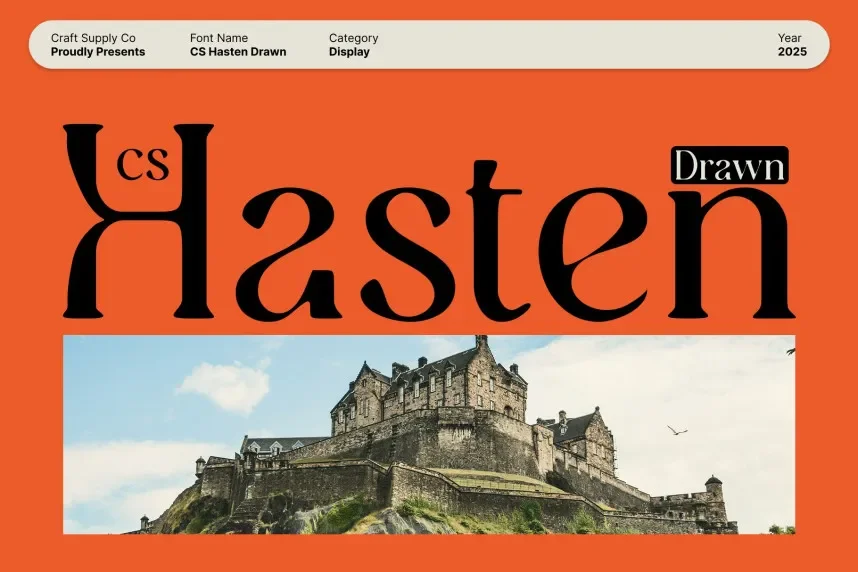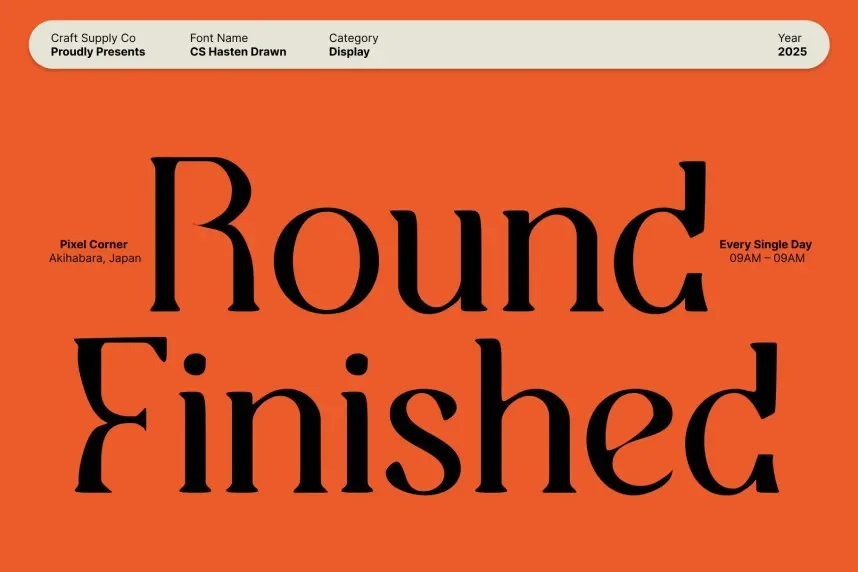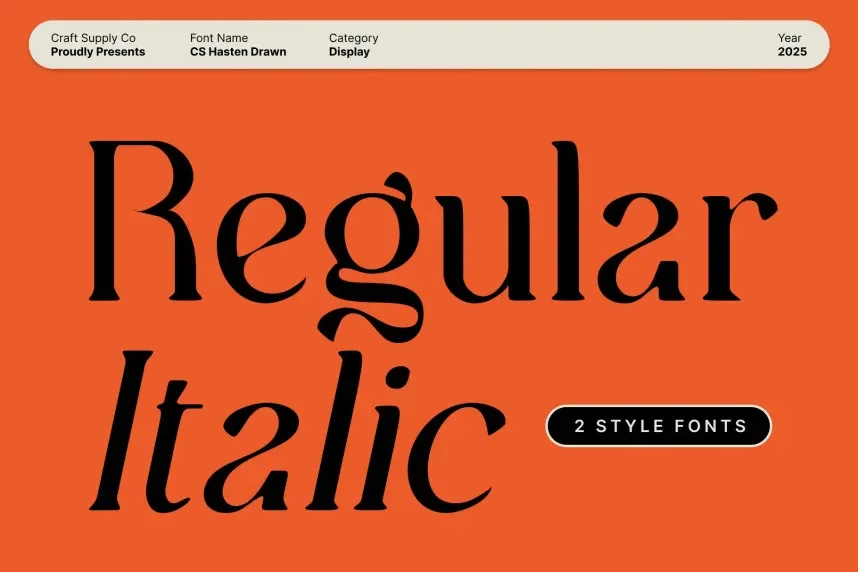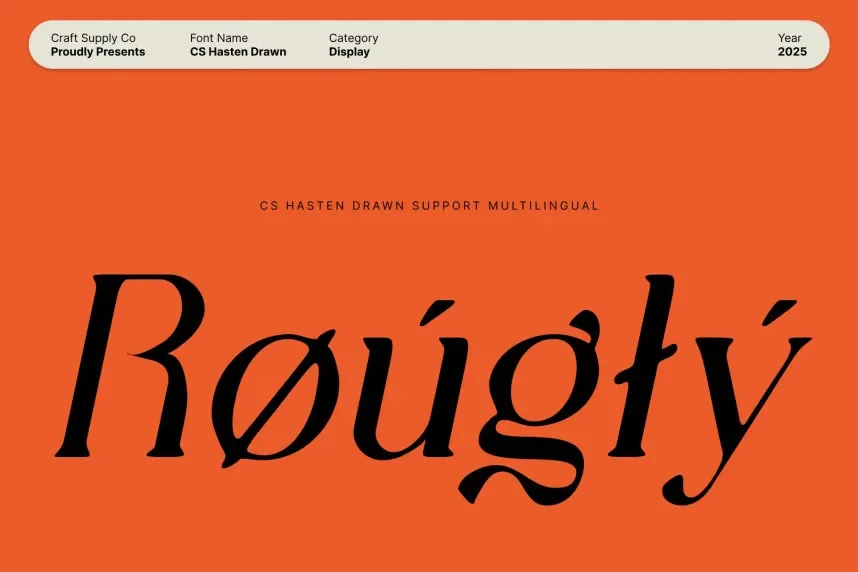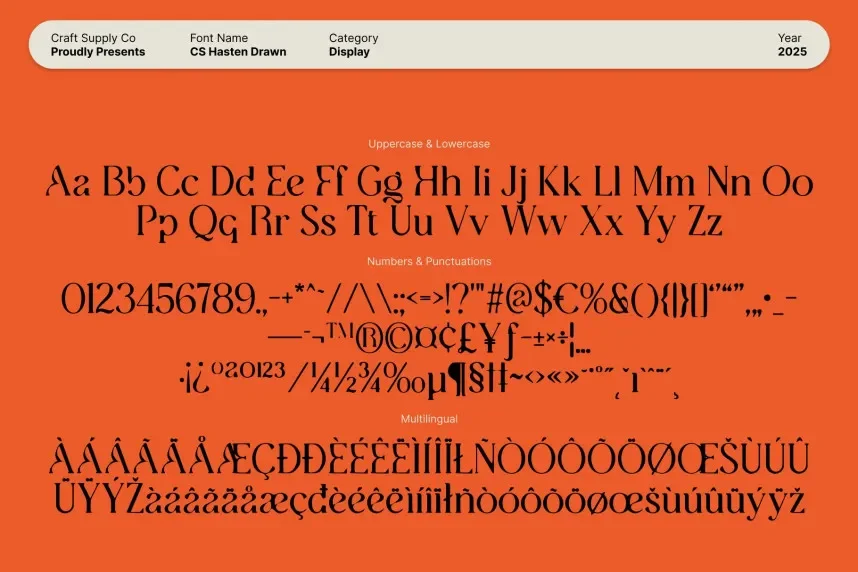
CS Hasten Drawn Font addresses the need for a dynamic, expressive font that adds movement to designs while maintaining legibility. Its playful character makes it ideal for creative, modern projects.
CS Hasten is a display font with energetic, irregular strokes and varying line thickness. The font’s energetic curves and angles evoke a sense of motion and creativity, making it stand out in designs.